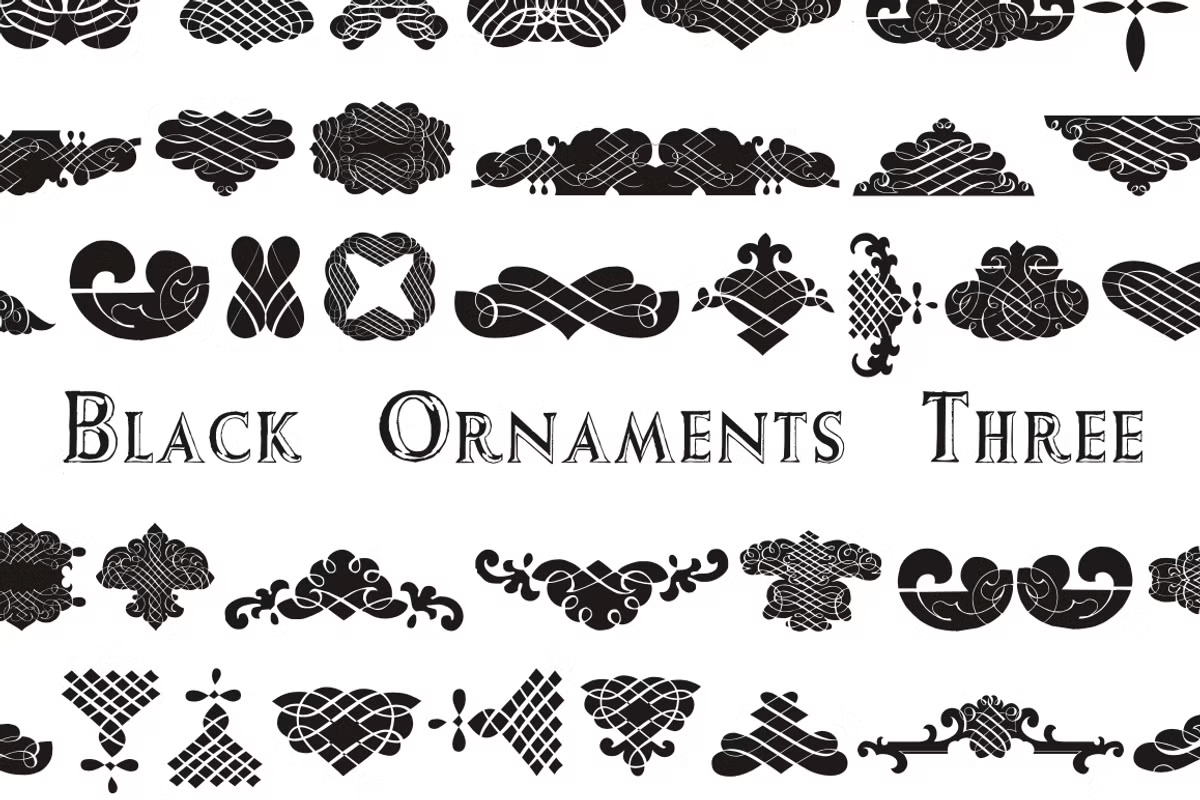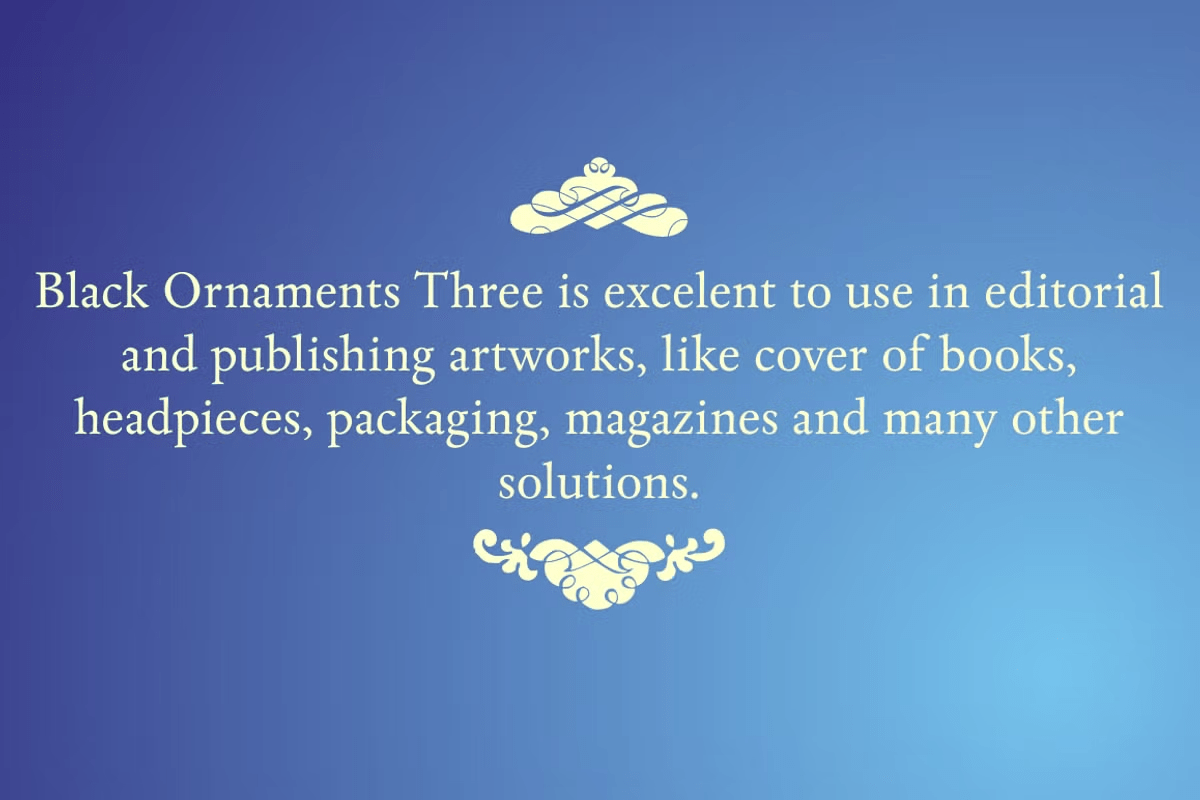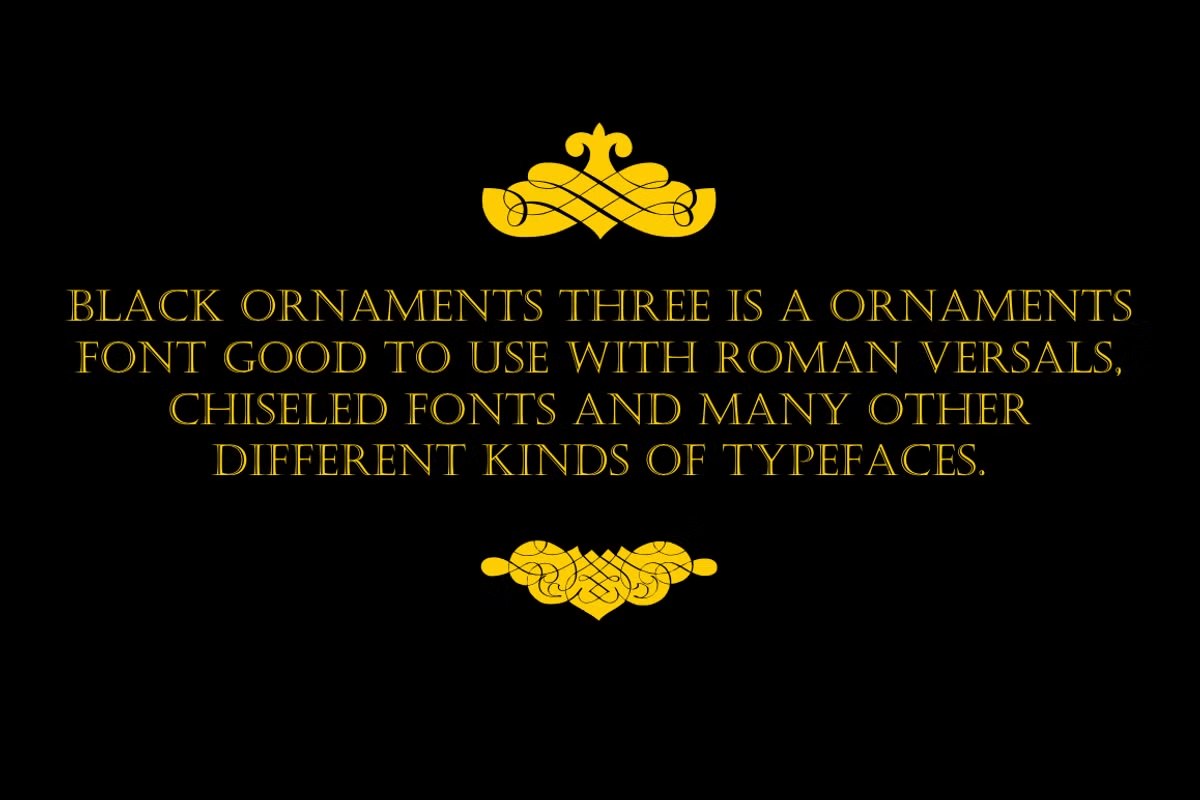
Black Ornaments Three
Font Family by Intellecta Design
Black Ornaments Three is excellent for use in editorial works of art and publishing, as the cover of books, headpieces, packaging, magazines and many other solutions. These ornaments work great with a variety of fonts, such as roman versals, chiseled and many other fonts.